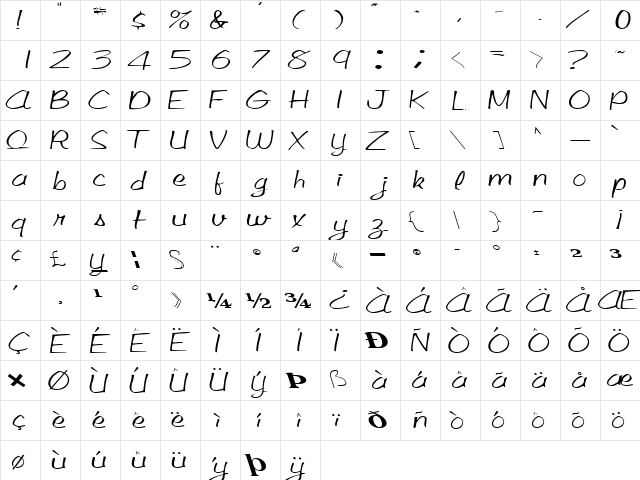
Voo Regular
Design Context for Voo Typeface
Voo is a composed and adaptable typeface that performs quietly and consistently across a wide range of design contexts.